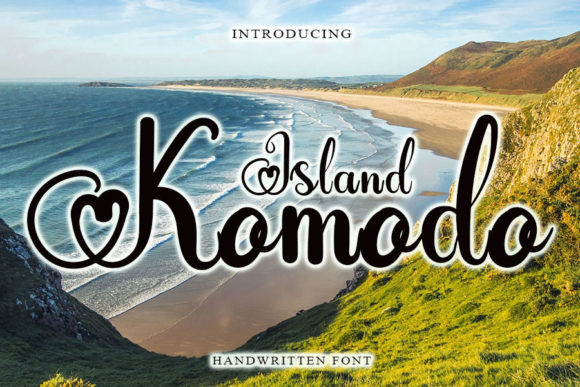
Behold, Komodo Font, the exquisite script font that will ignite your creativity and transform your designs into masterpieces. Created by the visionary team at lookstylemedia, this font is a true gem, meticulously crafted to capture the essence of elegance and charm.
With its graceful curves, delicate strokes, and enchanting swashes, Komodo Font will add a touch of sophistication and timeless beauty to your projects. It's the perfect choice for crafting eye-catching logos that make a lasting impression, branding designs that exude elegance, and quotes that inspire and uplift.
Unleash your creativity and let Komodo Font work its magic. Transform your wedding invitations into works of art, add a touch of charm to your blog posts, or create social media graphics that captivate your audience. The possibilities are endless with this versatile font.
Komodo Font is more than just a font; it's an artistic expression that brings your designs to life. Its unique and beautiful touch ensures that every project you create stands out from the crowd.
So, step into the world of Komodo Font and let your designs bloom with creativity and grace. Let this font be your muse, guiding you to create masterpieces that leave an unforgettable impression.